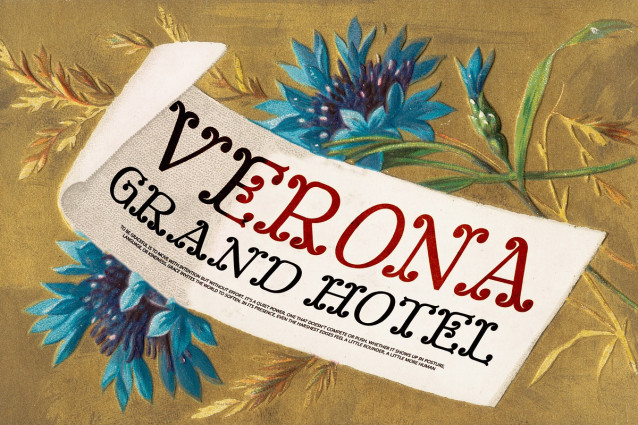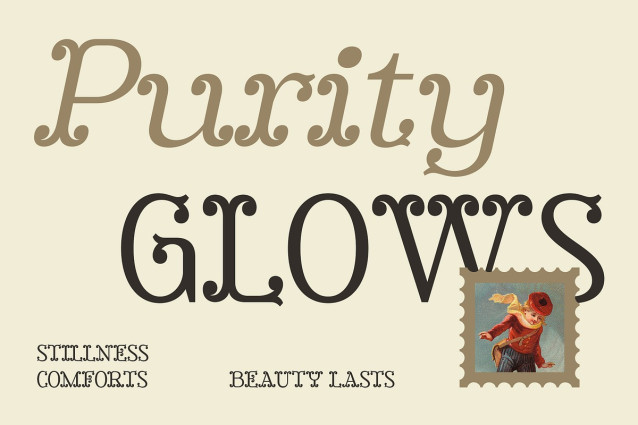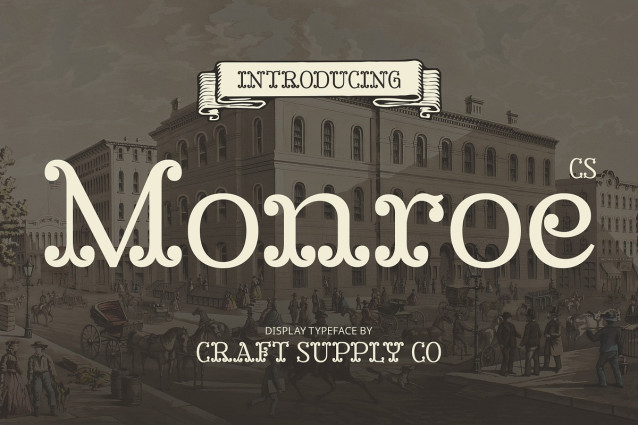
CS Monroe Font
CS Monroe – Tuscan Font is a display serif typeface that masterfully blends classic Tuscan design with retro beauty. The font’s distinct curves and ornate details exude a timeless charm, perfect for capturing the essence of vintage elegance while bringing sophistication to modern designs.
Timeless Charm with Ornate Details The font’s ornate details and curves lend it an air of timeless sophistication, making it ideal for designs that seek to combine a rich, historical feel with modern elegance. Whether used for editorial layouts, high-end branding, or decorative applications.
Perfect for High-End Branding and Editorial Designs CS Monroe – Tuscan Font is the perfect choice for high-end branding projects, luxury editorial designs, and decorative applications. Its vintage-inspired yet refined forms make it suitable for creating strong, elegant visual identities in industries such as fashion, fine arts, and luxury goods. This font is ideal for making a statement in logos, invitations, posters, and more.
Balanced Blend of Nostalgia and Class Offering a harmonious balance of nostalgia and sophistication, CS Monroe’s timeless appeal makes it a versatile addition to any design toolkit. Whether you’re creating a luxurious editorial spread or crafting a vintage-inspired logo, this font embodies the perfect fusion of classic style and refined luxury.